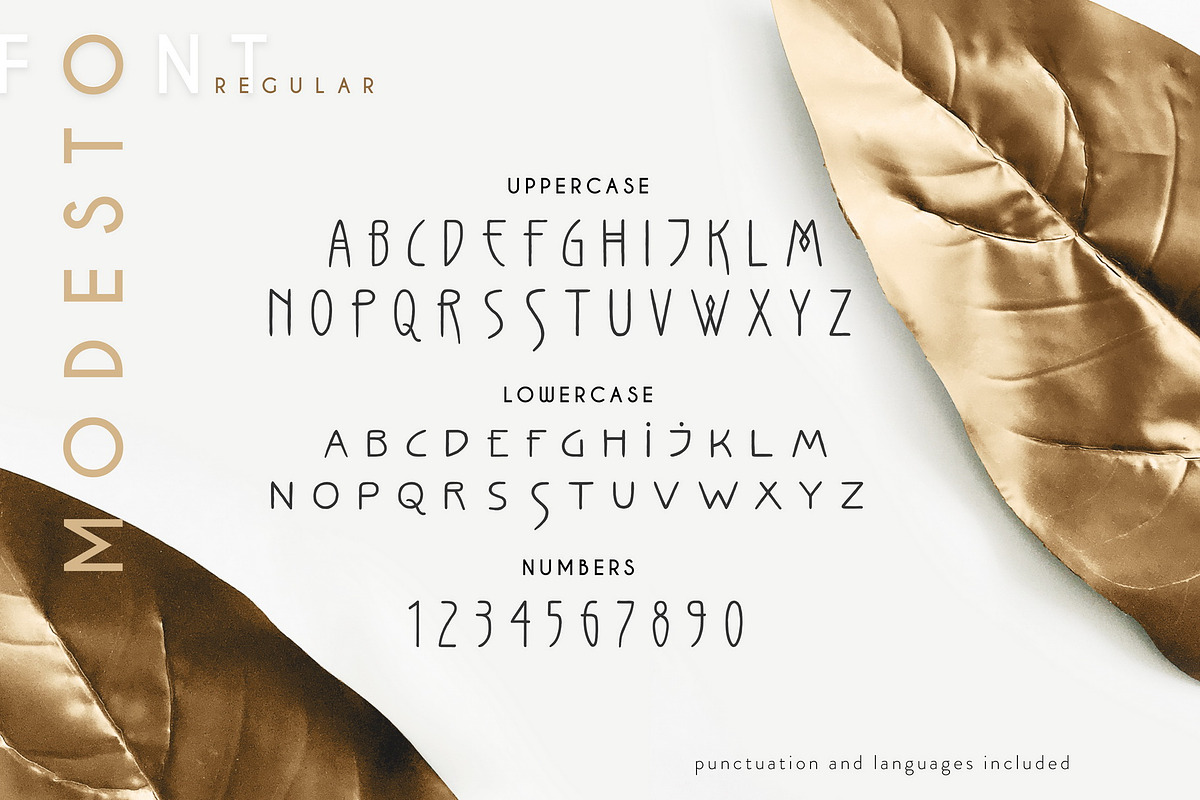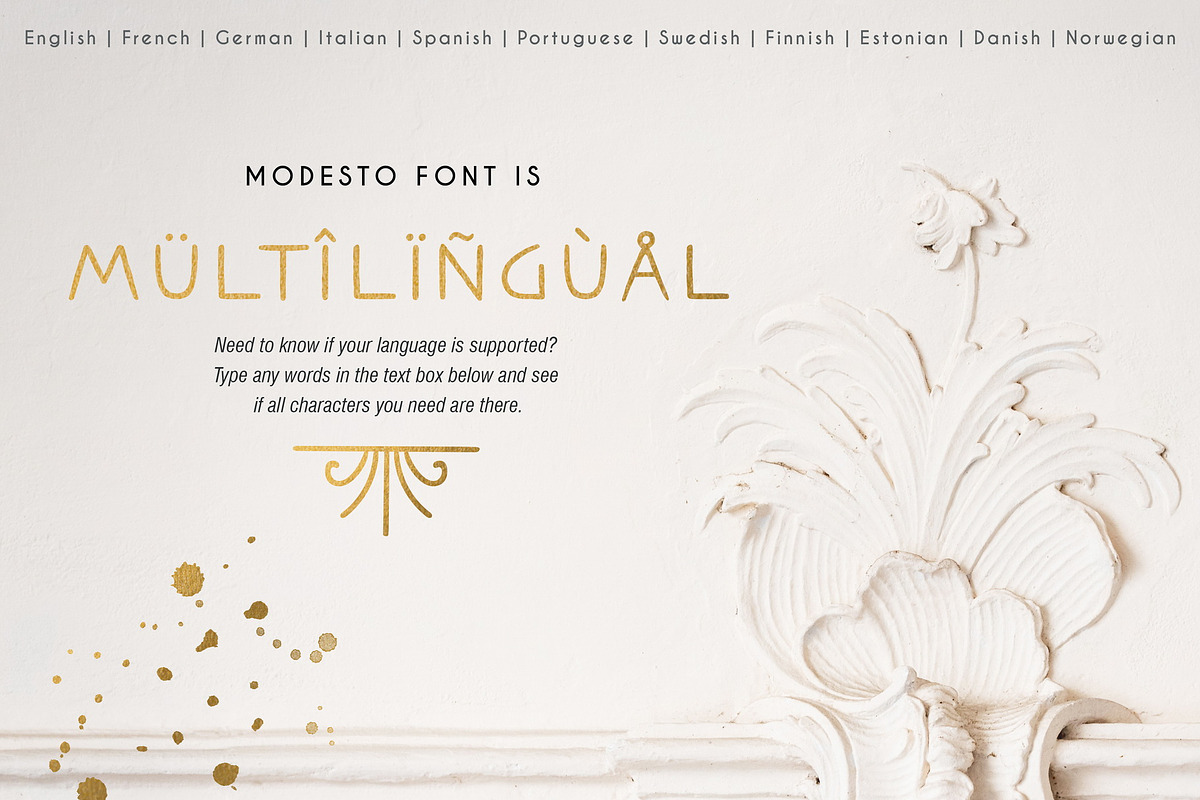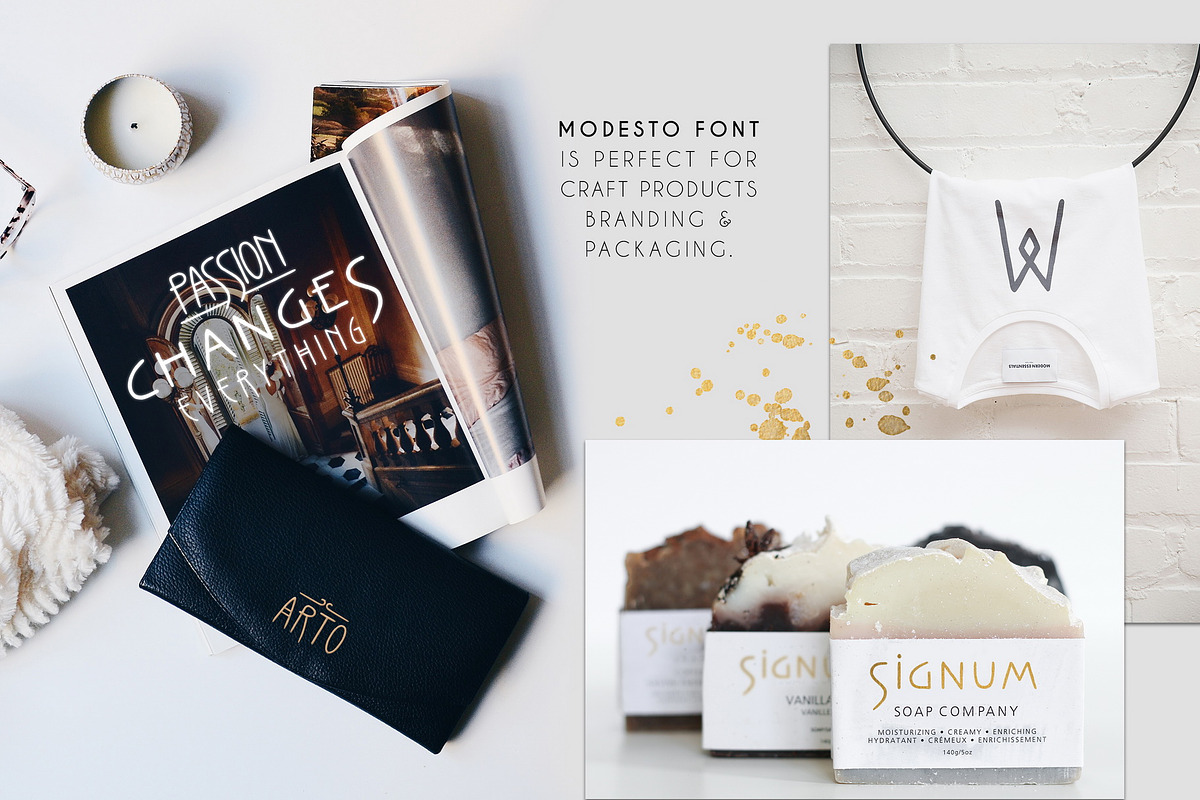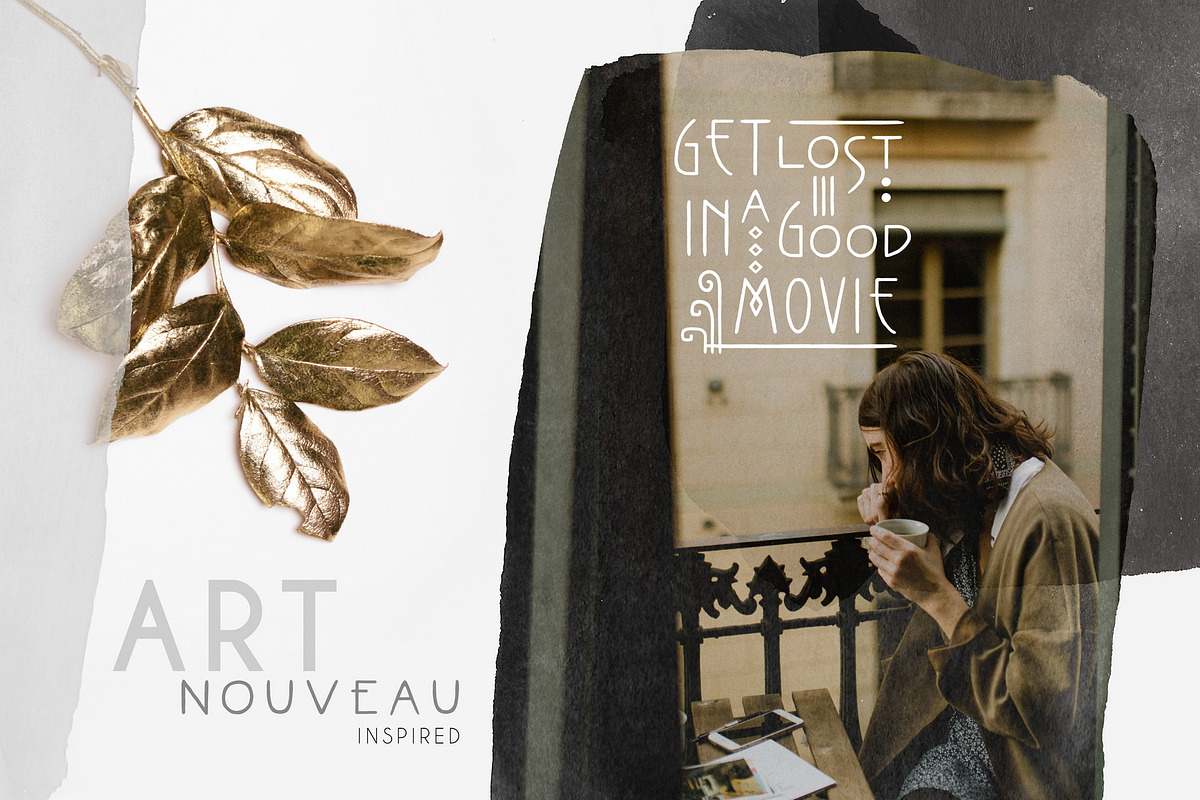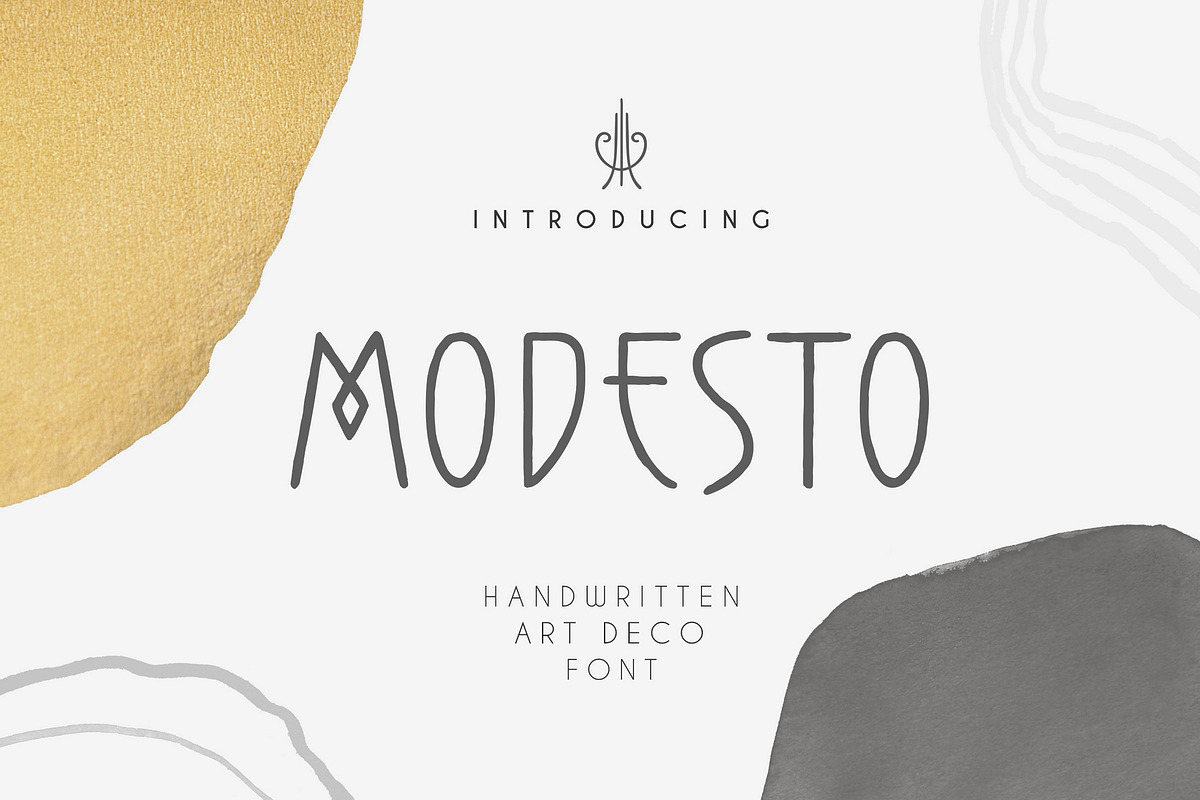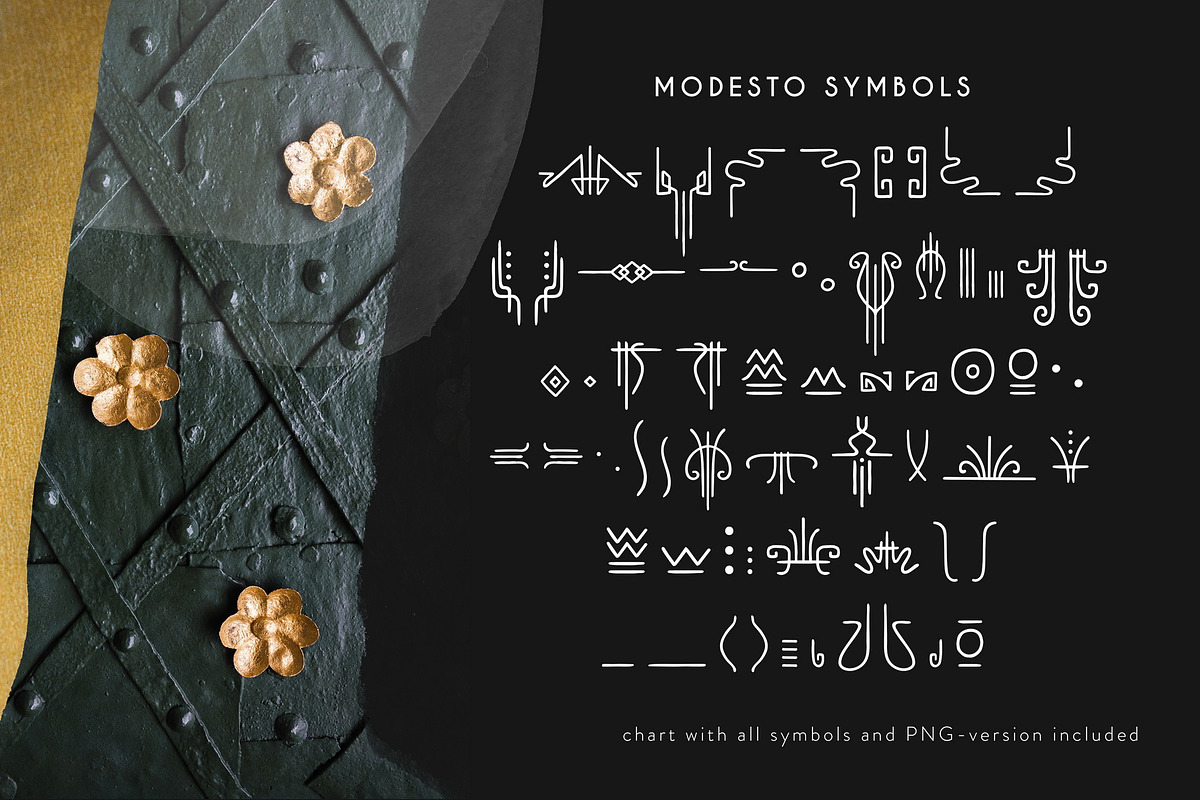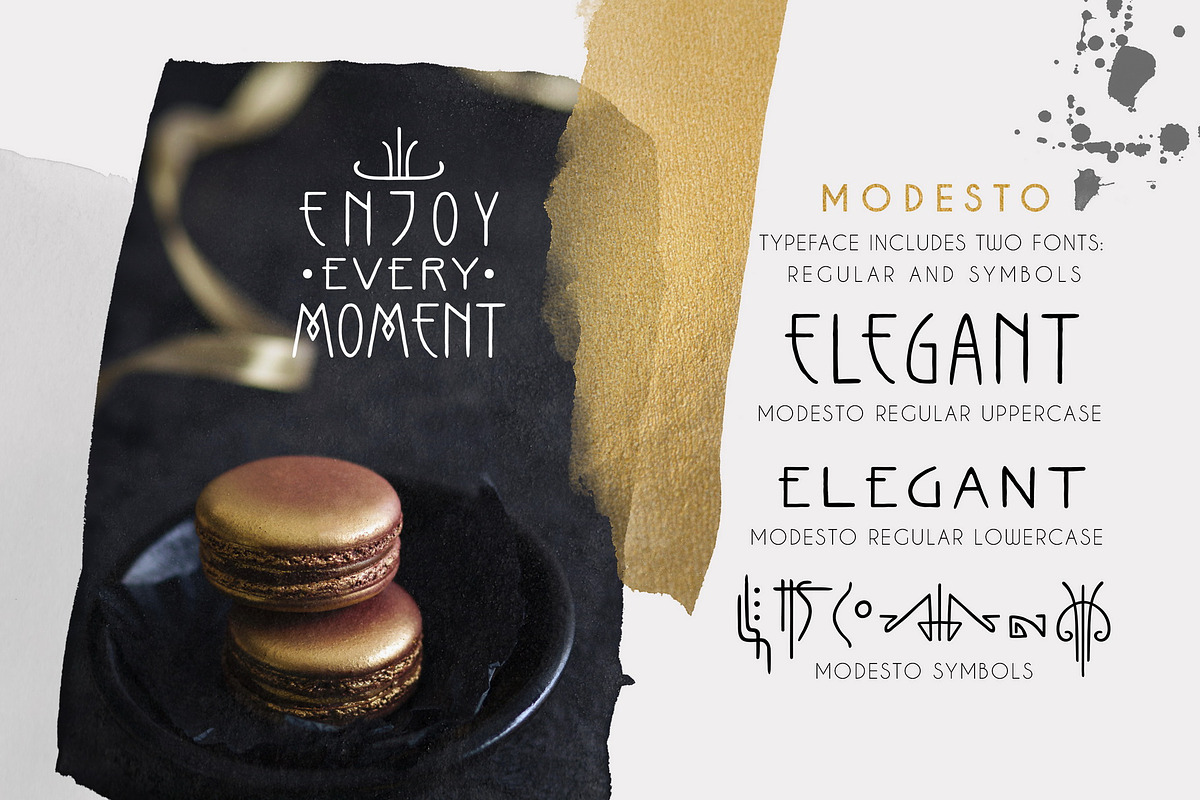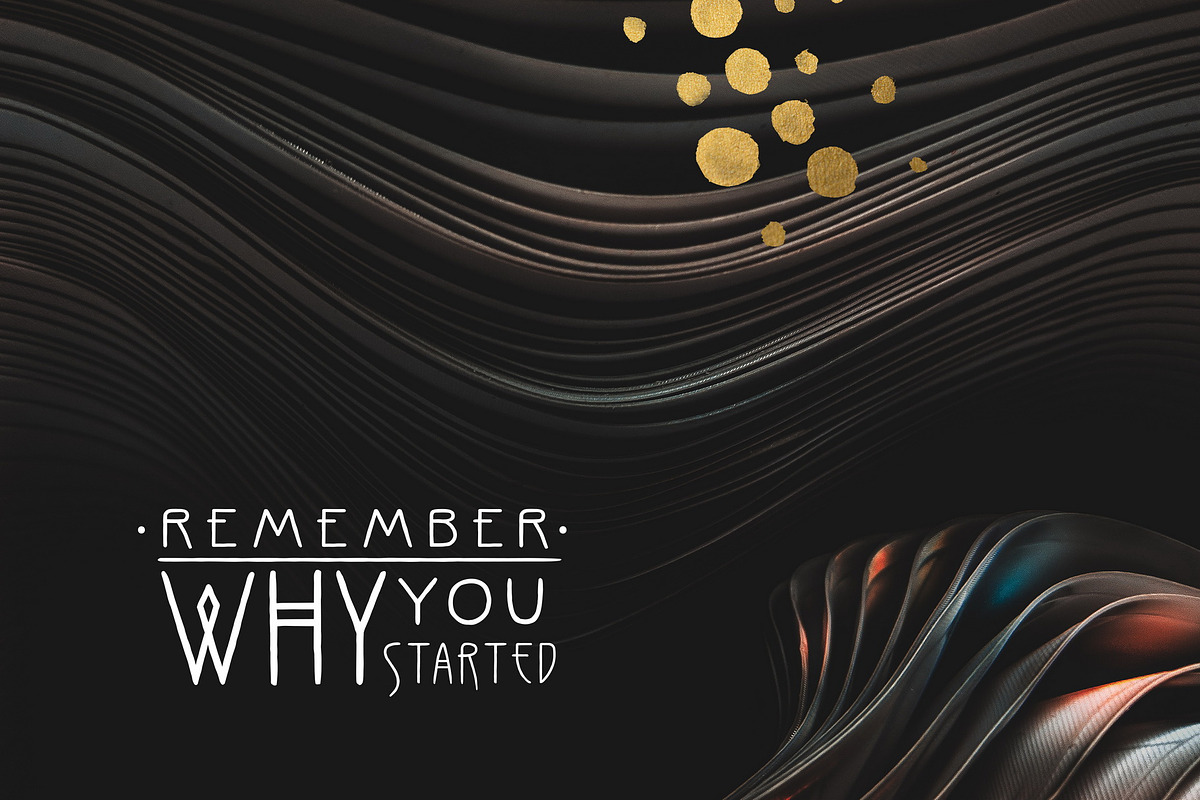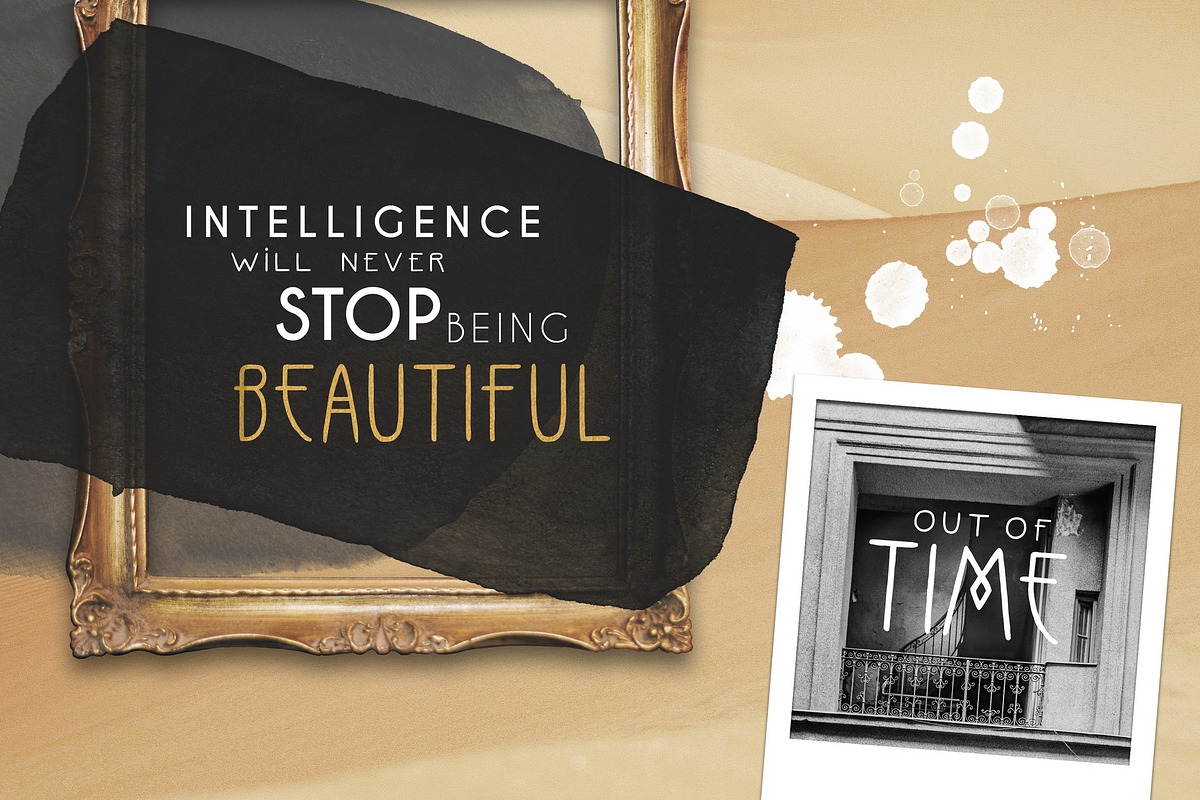
Modesto - Handwritten Art Deco Font
Modesto is a linear handwritten font in Art Deco style with Art Nouveau motives. The typeface includes Regular and Symbol versions. To get an elegant and unique design, combine letters with elements. The font is easy to use in various design programs or without any program.
Modesto font is suitable for retro posters, vintage photo overlays for your social media and design of books and magazines. The font works great both for printing clothes and craft products branding and packaging (coffee, chocolate, handmade soap, organic food). Also use individual letters and symbols to create logos and monograms.
- Modesto Regular
- Modesto Symbols
The font has extensive language support, it includes English, French, German, Italian, Spanish, Portuguese, Danish, Norwegian, Swedish, Finnish, Estonian. Need to know if your language is supported? Type any words in the text box below and see if all characters you need are there.
Modesto Regular includes stylistic alternates for letters S, s, Š, š.